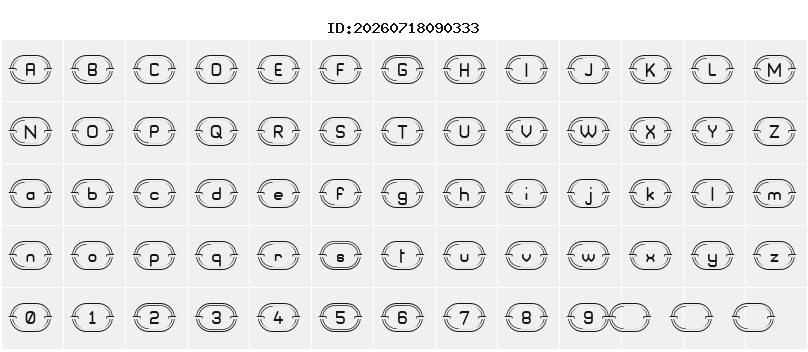
Chainz G98 Preview
• Font Name: Chainz G98
About Chainz G98.ttf
Chainz G98.ttf is a modern, elegant sans-serif font designed for ultimate readability and visual harmony. Perfect for branding, headlines, web design, and print materials.